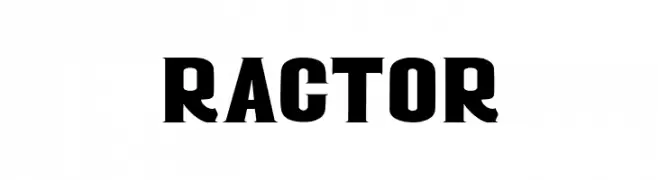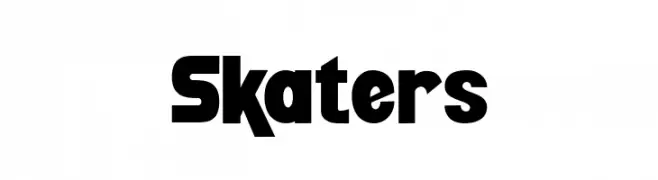
A playful handwritten font with smooth, flowing lines and dynamic letterforms.
A playful, rounded font with consistent stroke width and a modern, approachable style.
A decorative font with arrow-themed characters and sharp angles.
A bold, blocky font with strong, impactful characters.
A bold, decorative font with geometric shapes and star cut-out details.
A bold, dynamic font with horizontal lines creating a sense of speed and movement.
A bold, modern font with thick strokes and tight spacing.
A modern, artistic font with geometric and organic elements.
A bold, geometric font with sharp angles and a modern style.
A bold, distressed font with a vintage and rugged appearance.